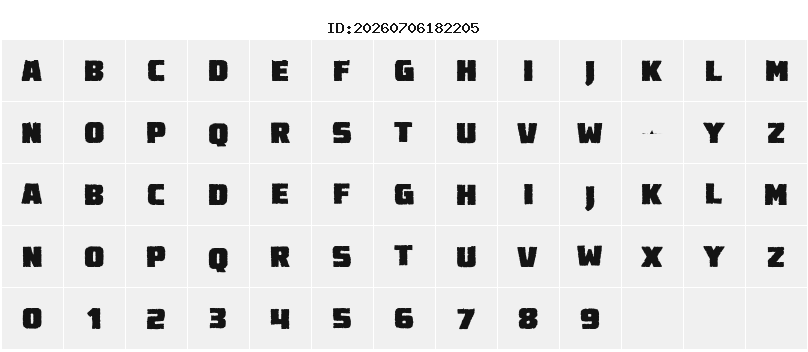
Destroy Earth BB Preview
• Font Name: Destroy Earth BB
• Font ID: NatePiekos.Blambot.com: Destroy Earth BB: 2012
• Full Font Name: Destroy Earth BB
• PostScript Name: DestroyEarthBB
• Designer: Nate Piekos
• Manufacturer: Nate Piekos. Blambot.com
About Destroy Earth BB.ttf
Destroy Earth BB.ttf is a modern, elegant sans-serif font designed for ultimate readability and visual harmony. Perfect for branding, headlines, web design, and print materials.